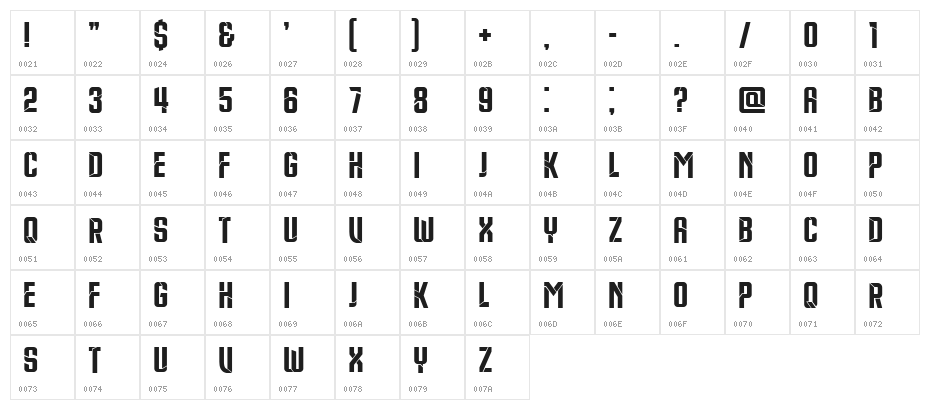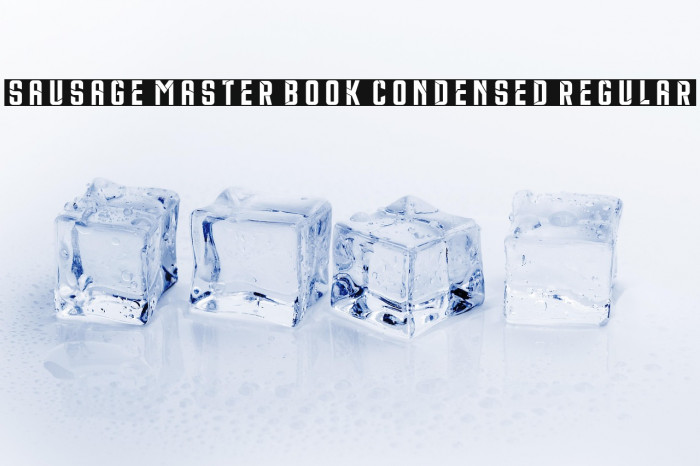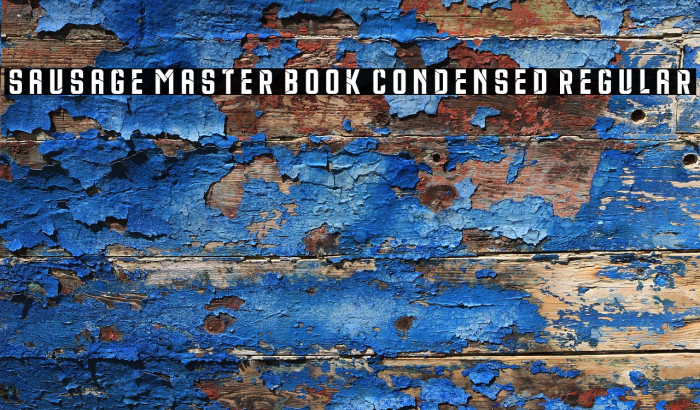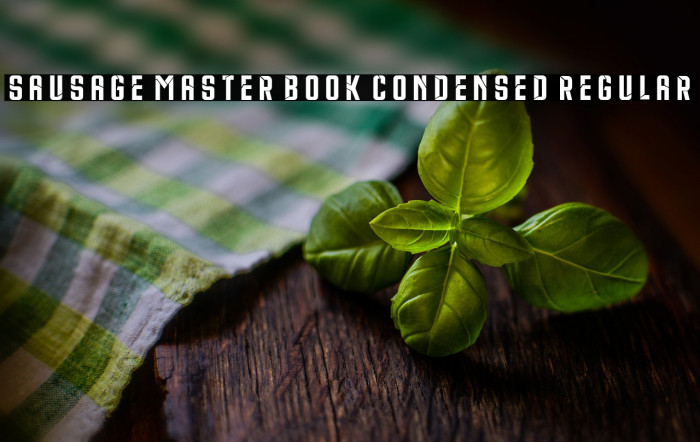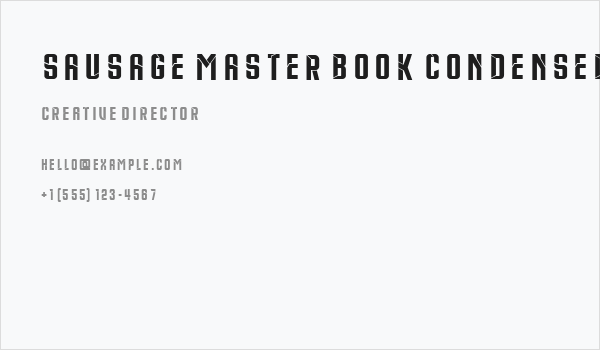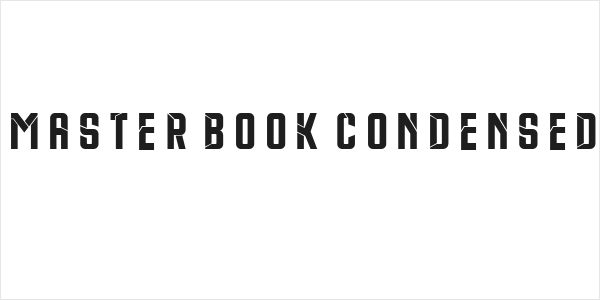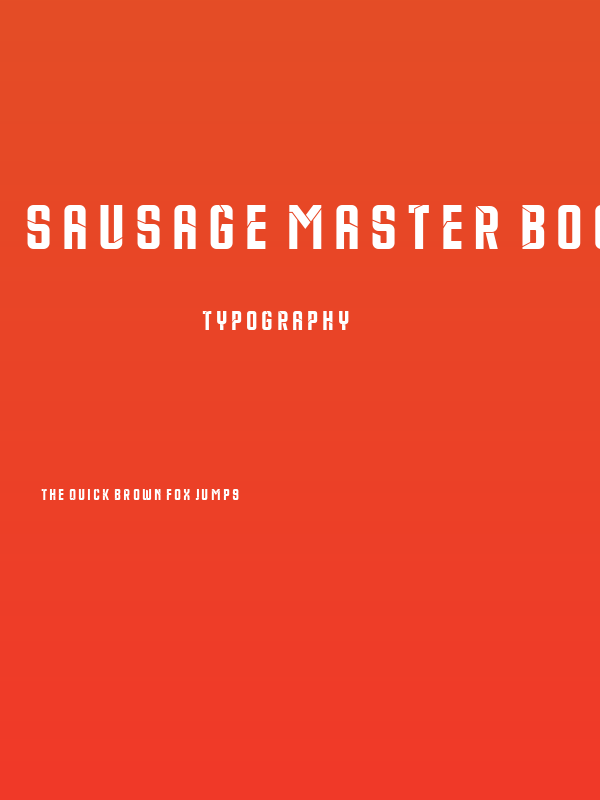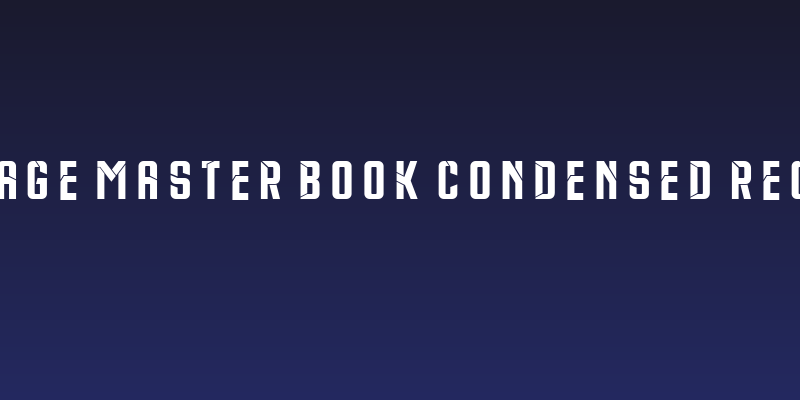
Sausage Master Book Condensed Regular Font
Sausage Master Book Condensed Regular Description
This font features a bold and geometric design with a condensed structure, characterized by sharp angles and a modern aesthetic. The letters are uppercase and maintain a consistent height, creating a uniform appearance. The unique cut-out sections within each character add a dynamic and edgy feel, making it stand out. The numbers and special characters follow the same stylistic approach, ensuring cohesion across all elements. This font is ideal for projects that require a strong visual impact and a contemporary look.
| Proposed Projects | Ideal for branding, posters, headlines, and any design needing a bold, modern touch. |